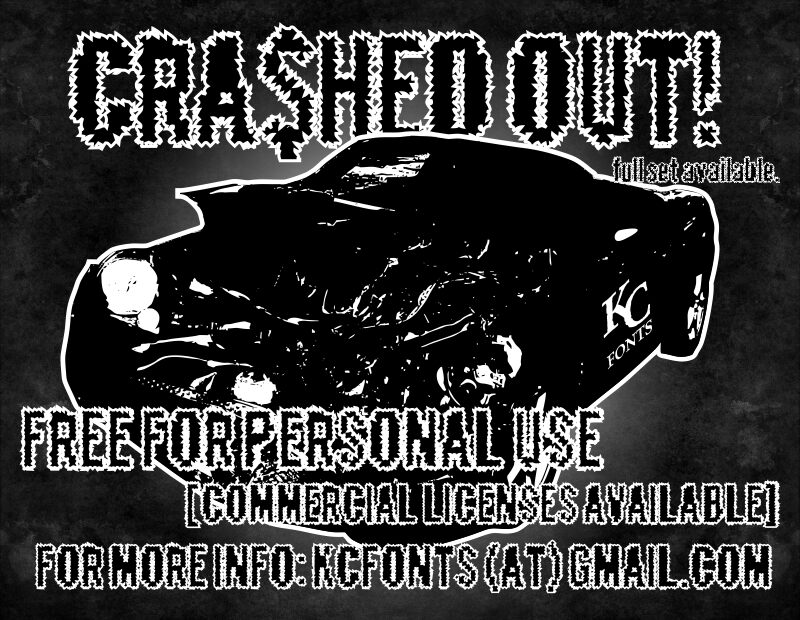
Crashed Out by Kevin Christopher of KC Fonts is a free eroded display font with dense, towering letters and a violently shredded outline. Its repeated spikes and sharp internal cuts give the lettering the look of torn paper or battered metal.
Punk and horror references make it especially convincing for concert posters, album artwork, game graphics, and Halloween event material, with the raw force of photocopied flyers. The jagged silhouette can become part of a band emblem or entertainment brand, linking the name itself to distressed artwork and aggressive imagery.